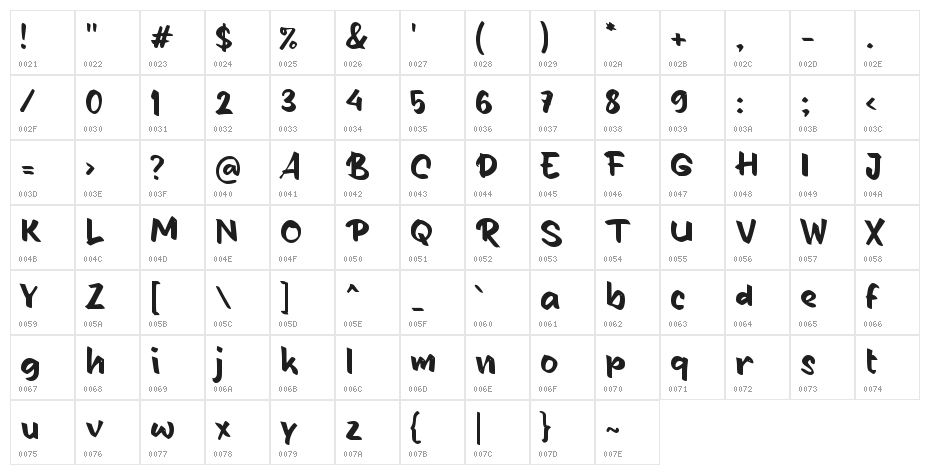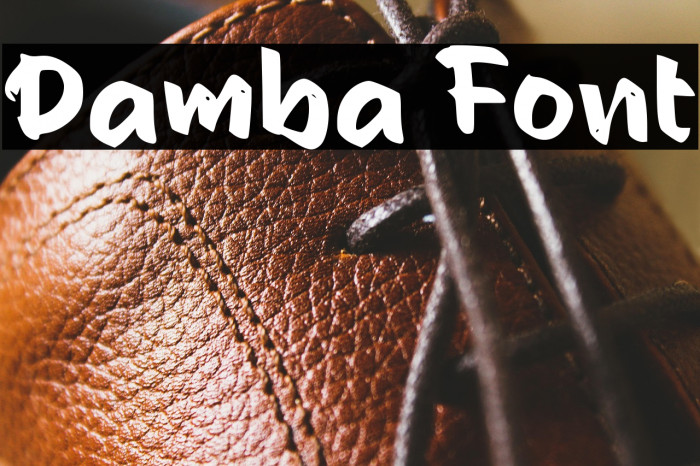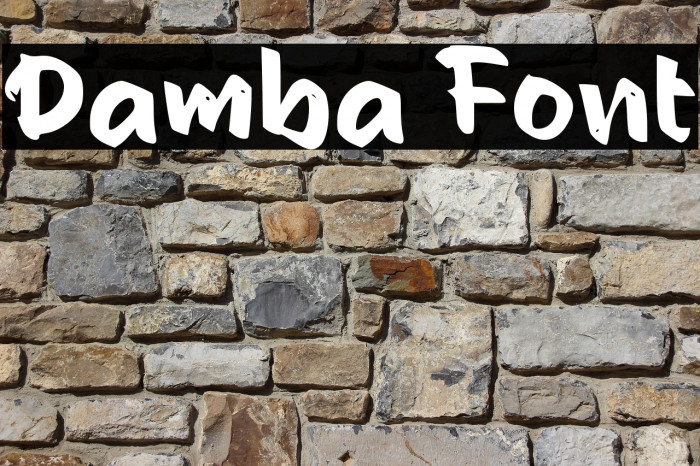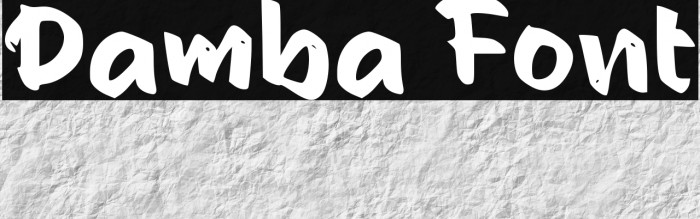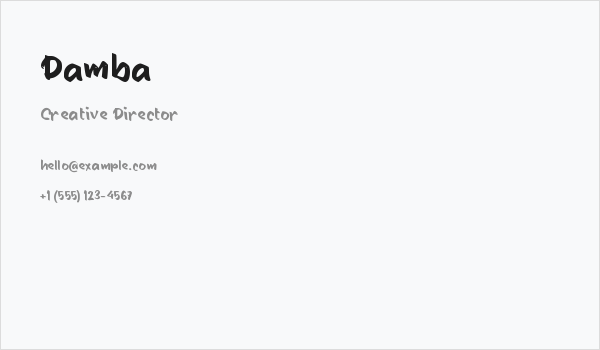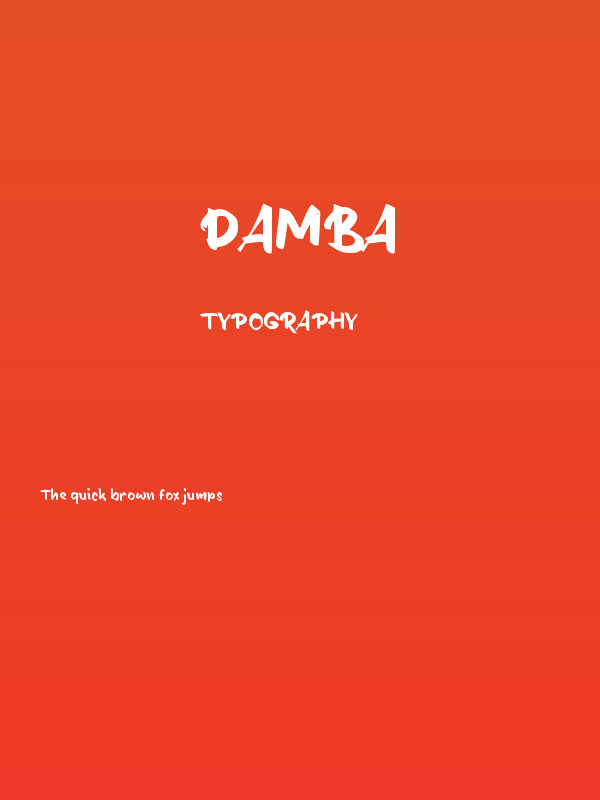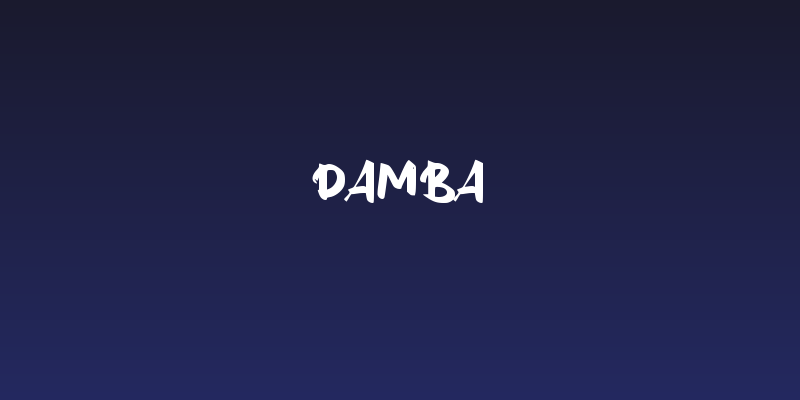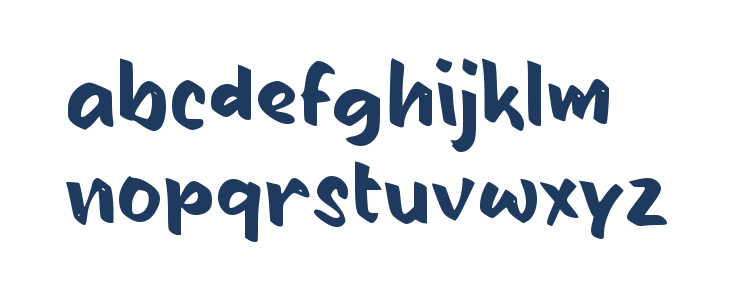
Damba Font
Damba Description
This font features a bold, handwritten style with a playful and energetic appearance. The characters are slightly irregular, giving it a casual and informal feel. The uppercase and lowercase letters are well-balanced, with a consistent stroke weight that adds to its legibility. The numbers and special characters maintain the same lively aesthetic, making it versatile for various uses. The font's unique personality is conveyed through its dynamic curves and slightly exaggerated forms, which create a sense of movement and spontaneity.
| Use Case | Logos, Headlines, Informal Text |
| Proposed Projects | Ideal for projects that require a personal touch, such as greeting cards, invitations, children's books, and playful branding materials. |